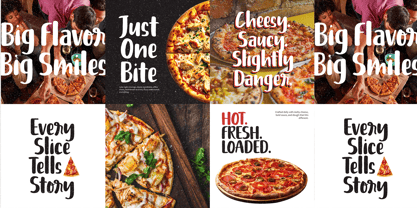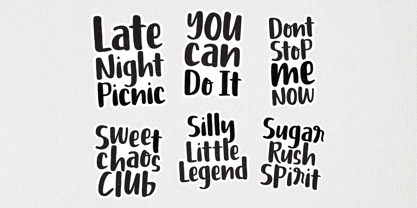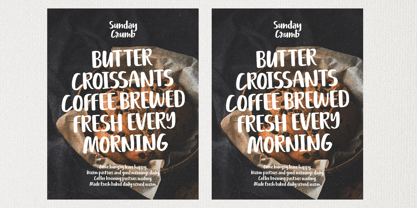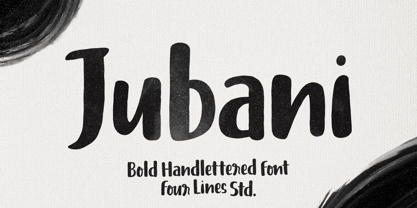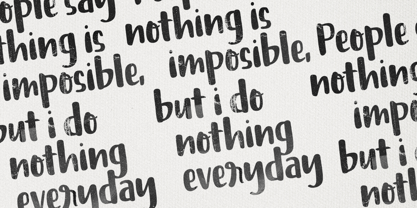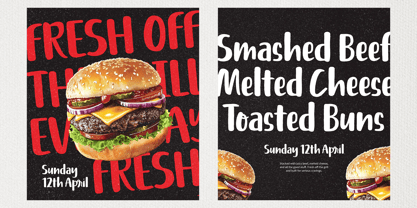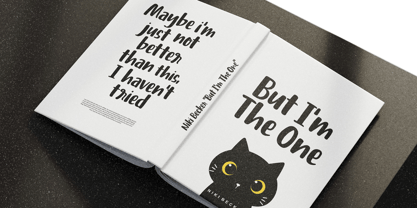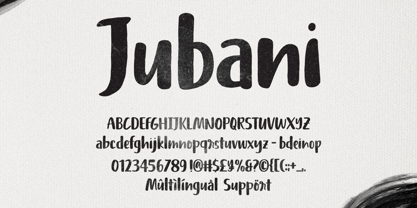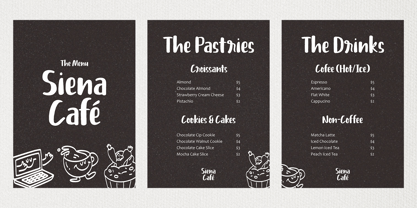
Jubani
Die Schriftfamilie Jubani wurde von Zain Fahroni entworfen und von Four Lines Std veröffentlicht. Jubani enthält 1 Stile. Mehr über diese Familie
Jubani is a bold handlettered font with a natural, rhythmic flow and plenty of character. Featuring smooth curves and harmonious organic details, this font brings a warm, relaxed, and expressive feel to every word.
Designed to stand out while maintaining a friendly handwritten touch, Jubani is perfect for logos, branding, posters, product packaging, social media, merchandise, and various display designs that aim to feel more lively and energetic.
Designer: Zain Fahroni
Foundry: Four Lines Std
Four Lines Studio is a graphic design studio founded in 2019 by Zain Fahroni in Bandung City, Indonesia. The studio's name is inspired by a friendship story that is close to the founder's heart. Our work is heavily influenced by this friendship, which has given birth to an identity that is associated with fun, playful, and groovy elements. A key area for the studio is typography, with a specific focus on developing fonts that emphasize minimalism and versatility.